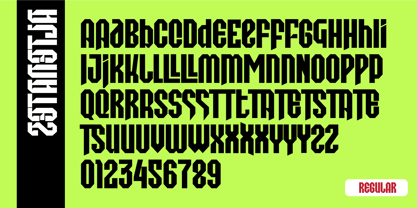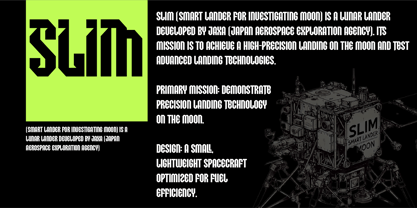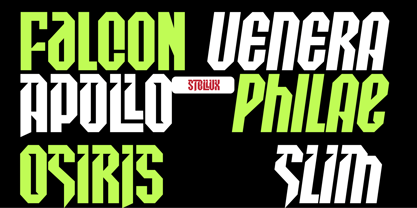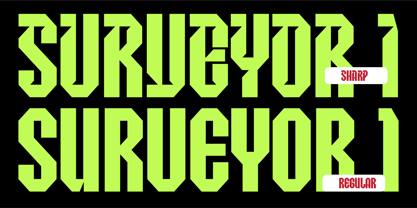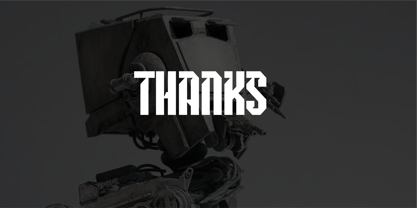
Stellux
por Mevstory Studio
La familia tipográfica Stellux fue diseñada por Muhammad Afif Ersya y publicada por Mevstory Studio. Stellux contiene 4 estilos y opciones de paquete familiar. Más información sobre esta familia
Stellux is a futuristic cyberpunk display font. The typeface design will elevate your project, making it more powerful and inspiring. It's perfect for headlines, billboards, magazines, websites, titles, posters, branding, thumbnails, t-shirt designs, streetwear designs, and creative logos, or any project in need of a futuristic touch. With this beautiful futuristic display font, you can truly make your project stand out from the rest. Check out the previews above to get some inspiration on how to use them
Diseñadores: Muhammad Afif Ersya
Fundición: Mevstory Studio